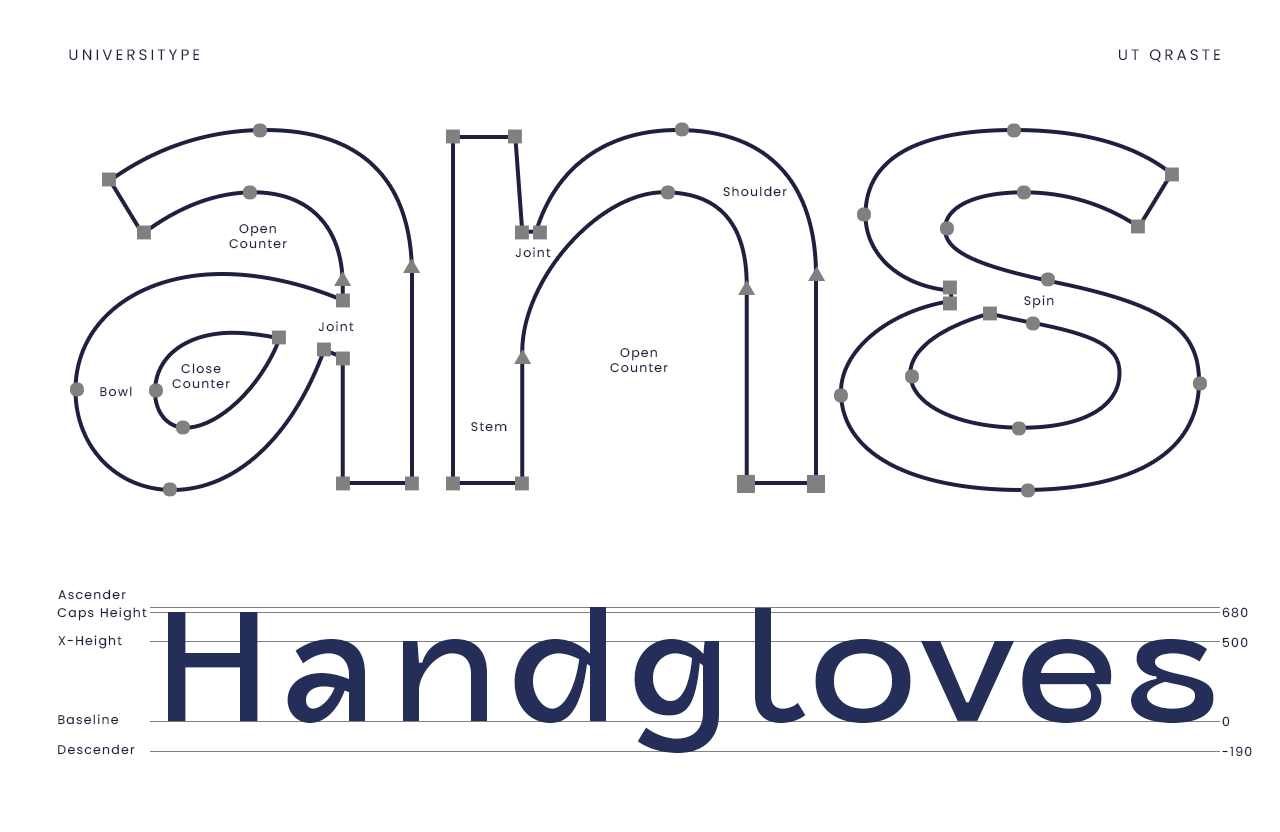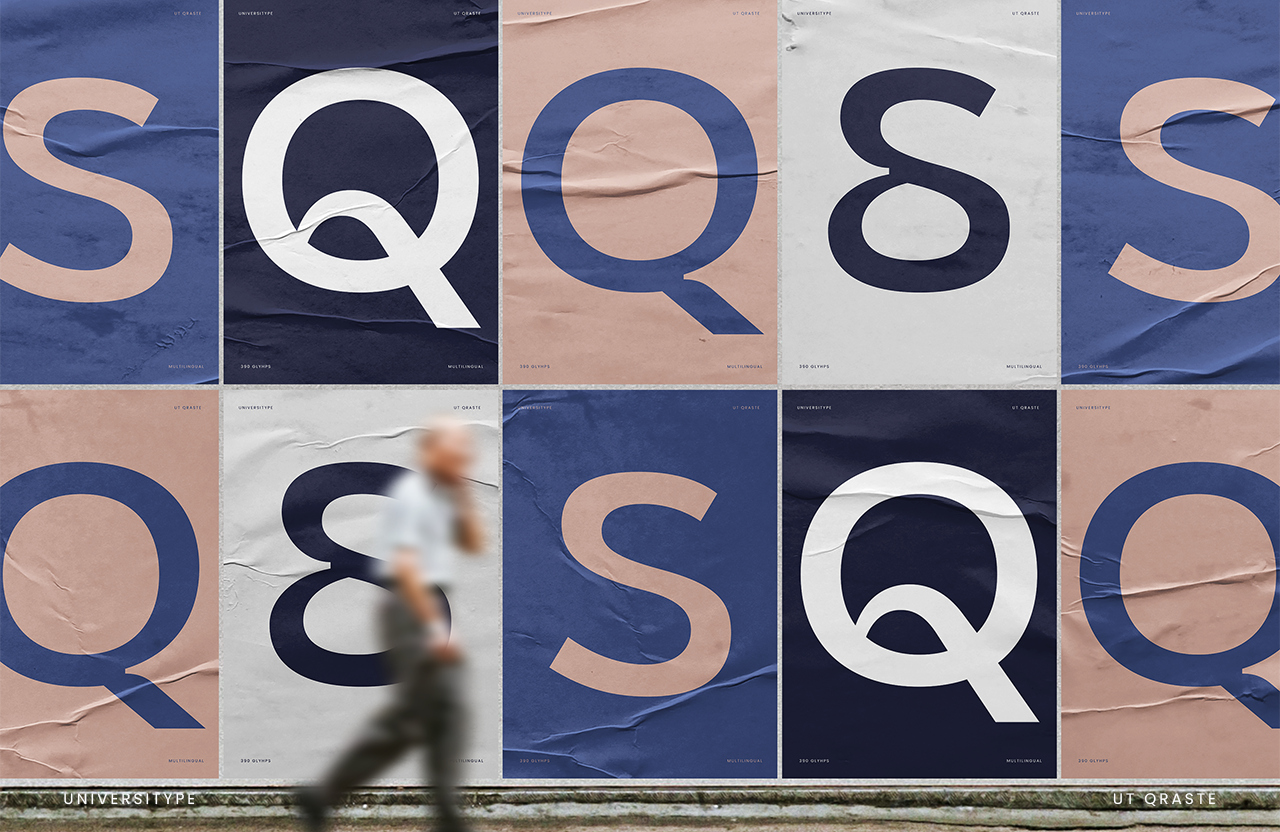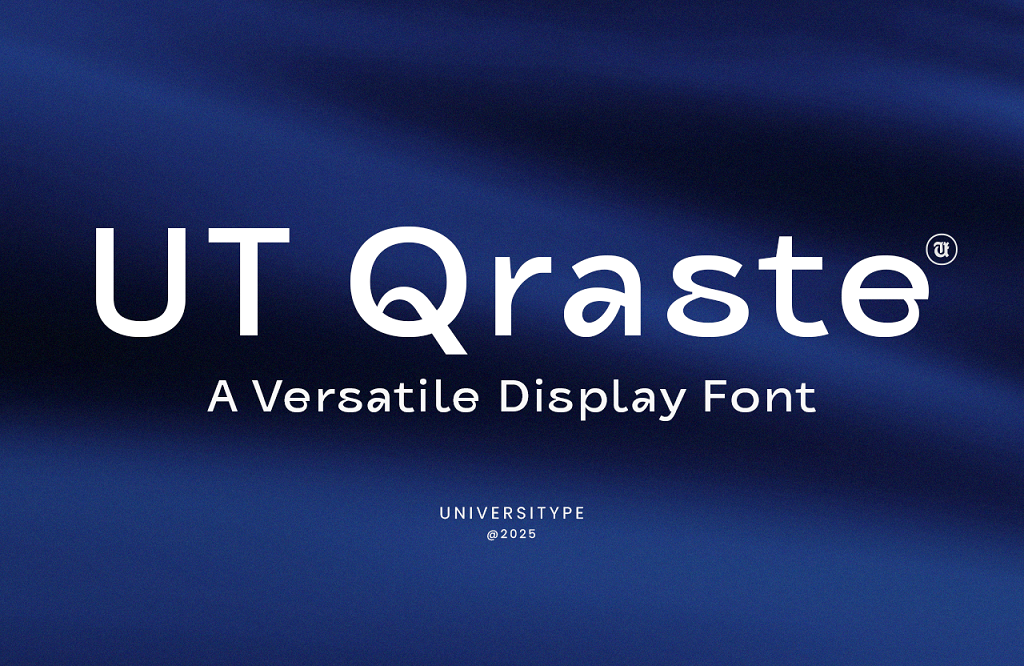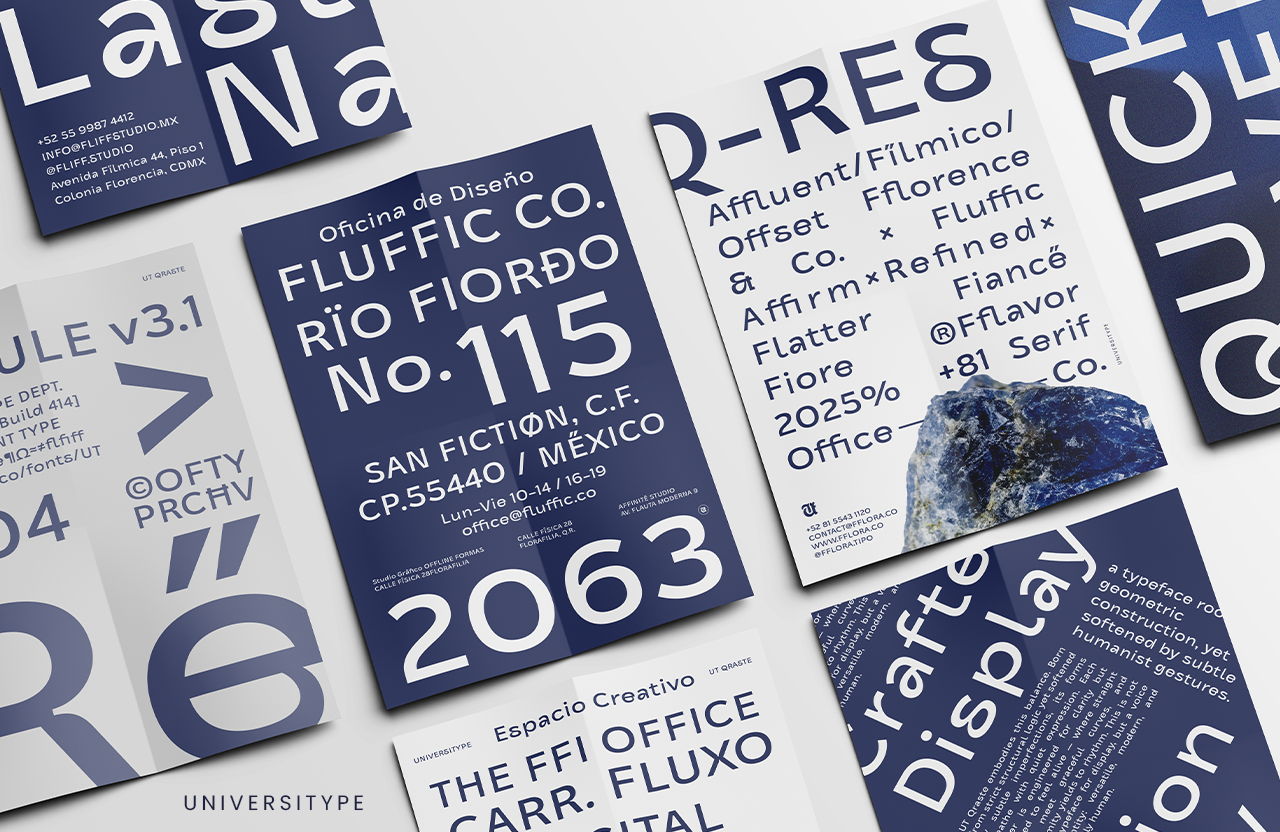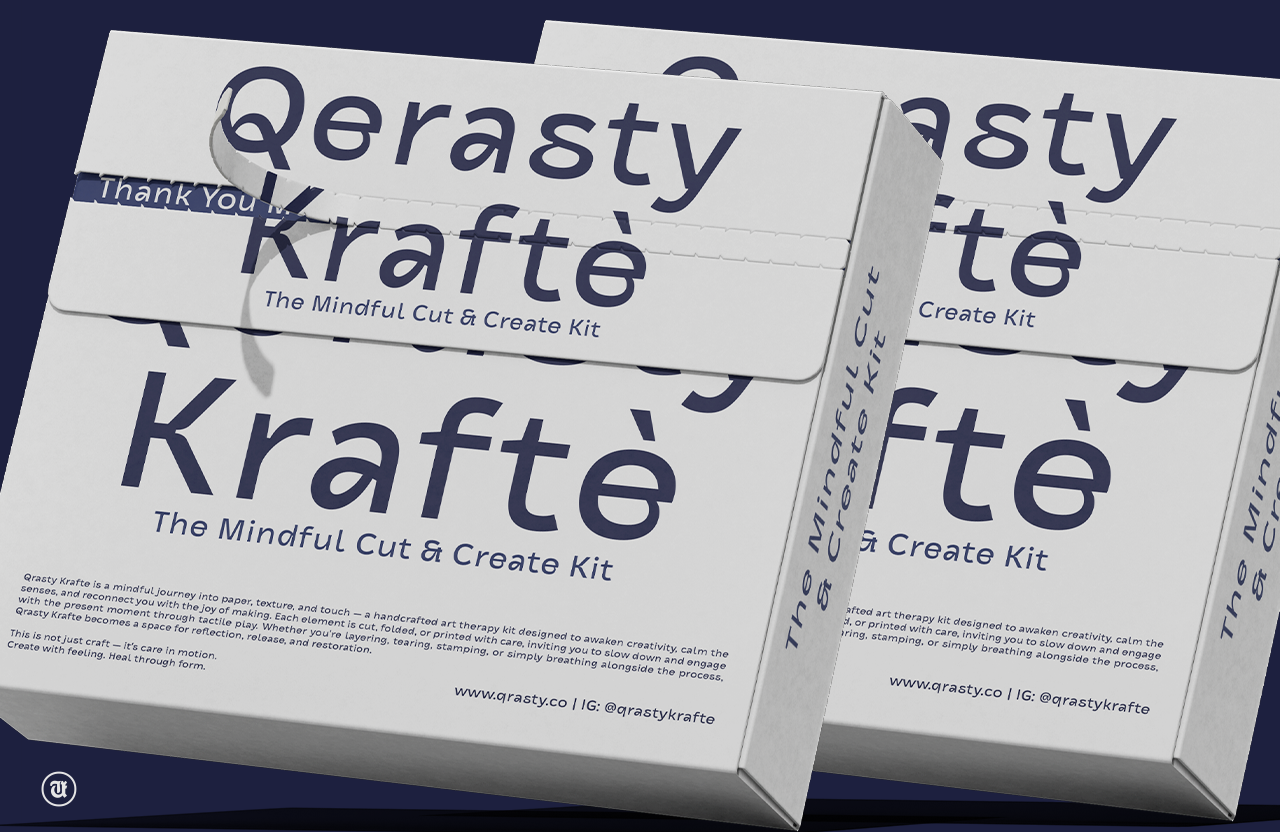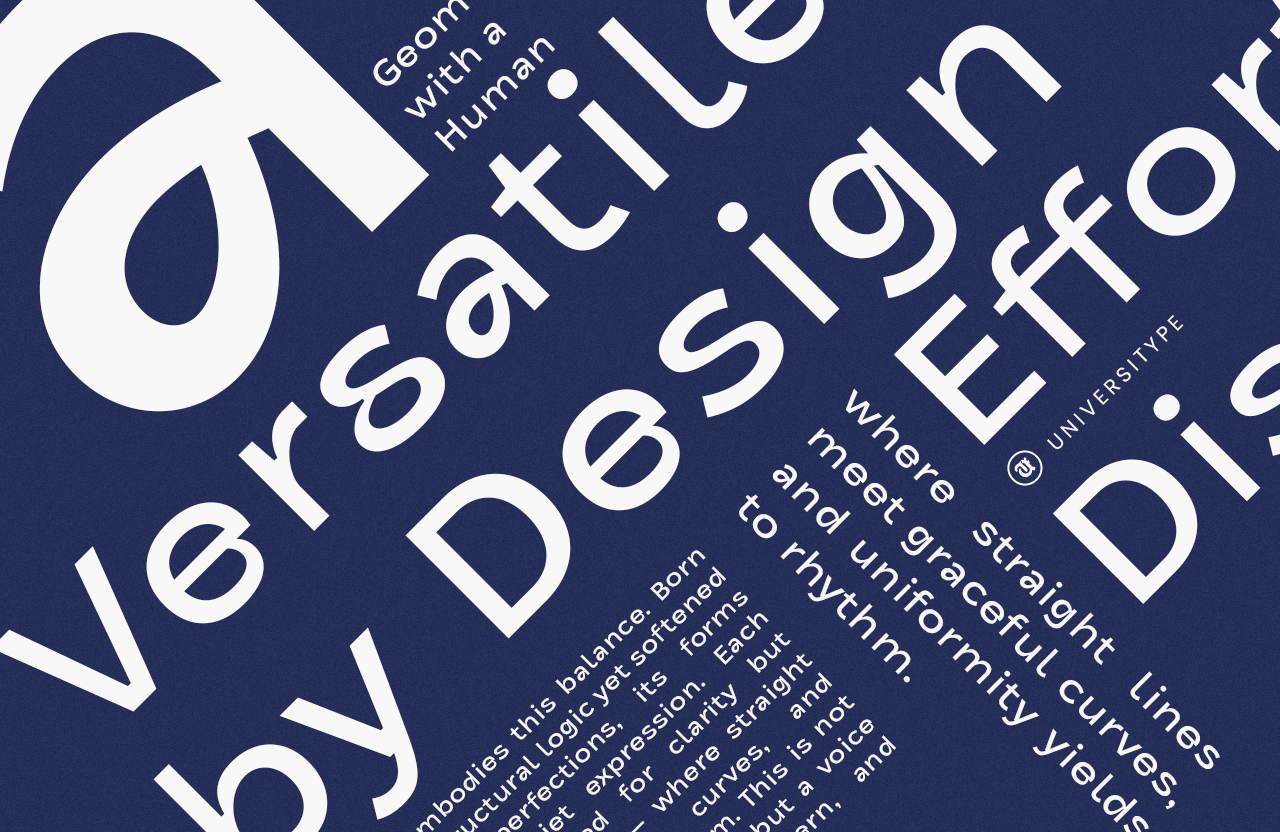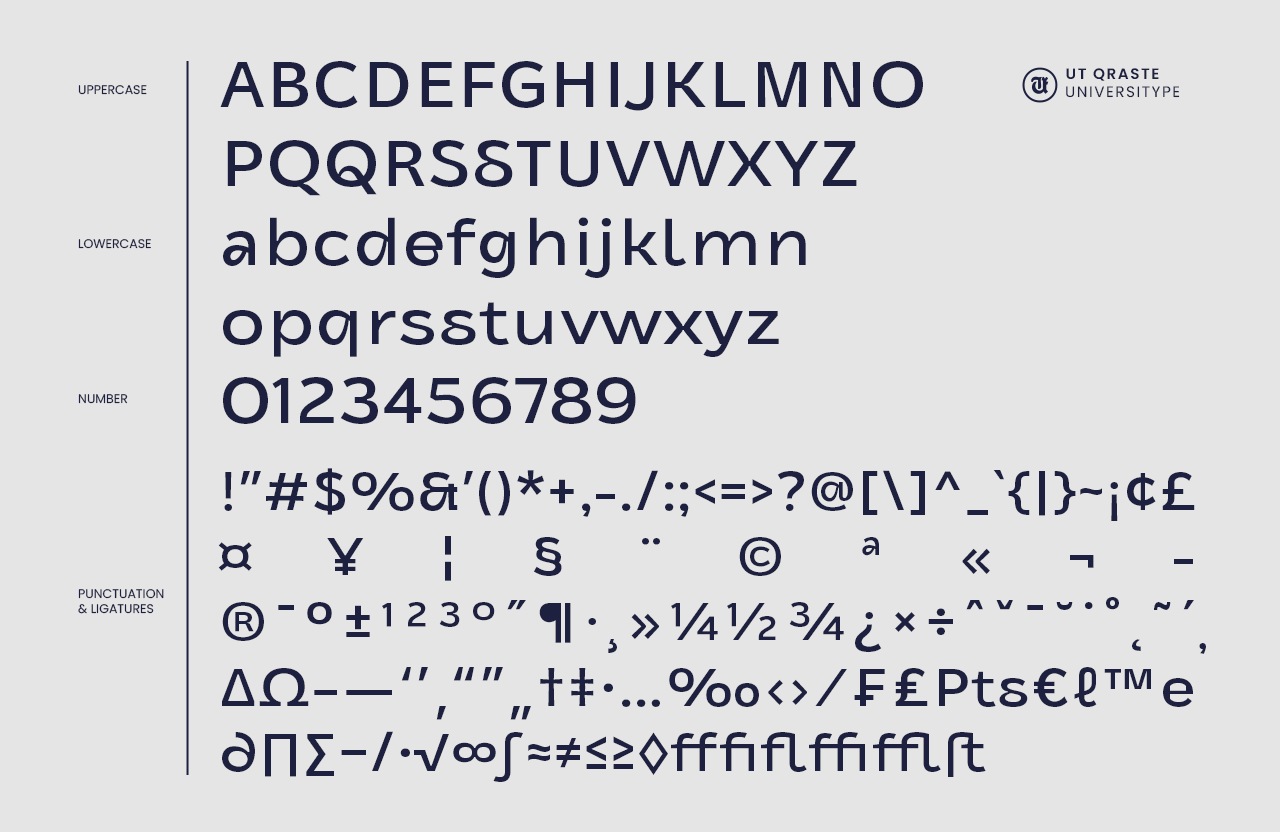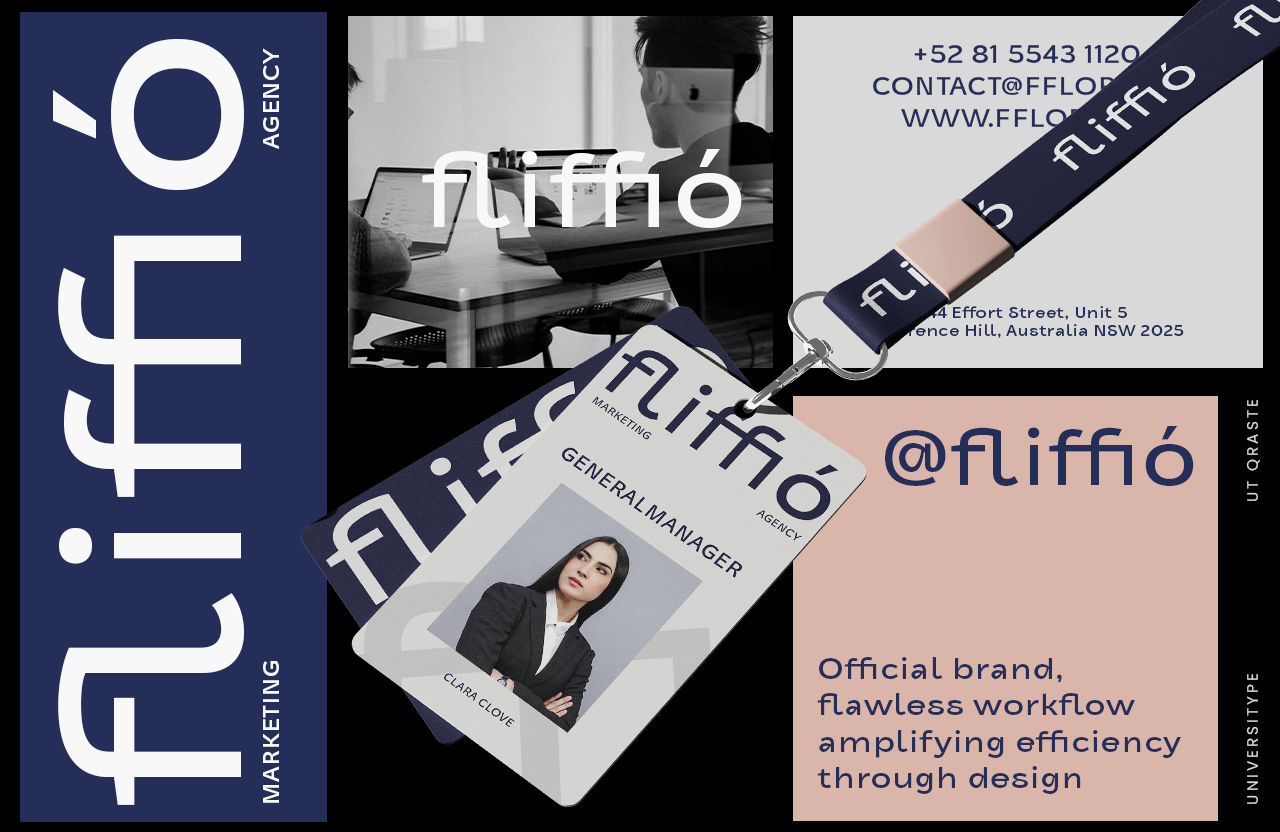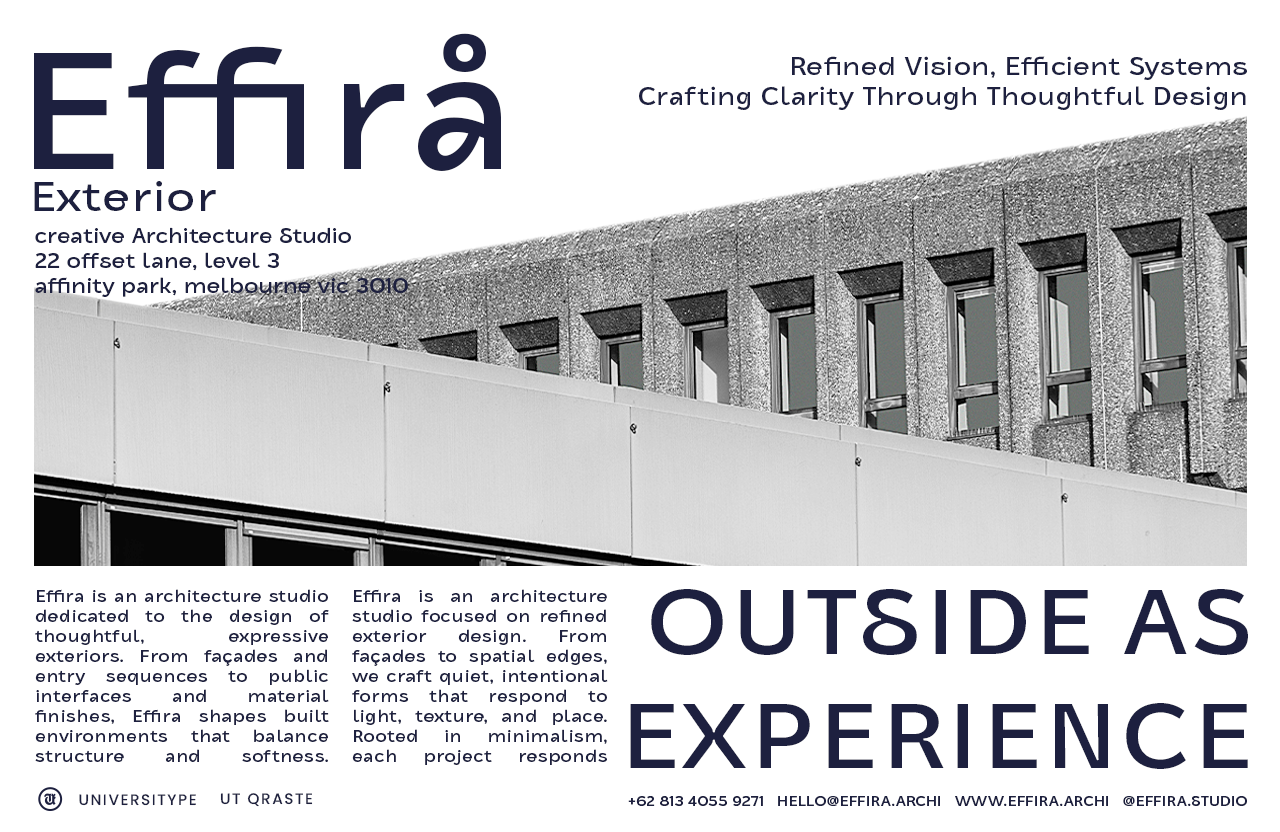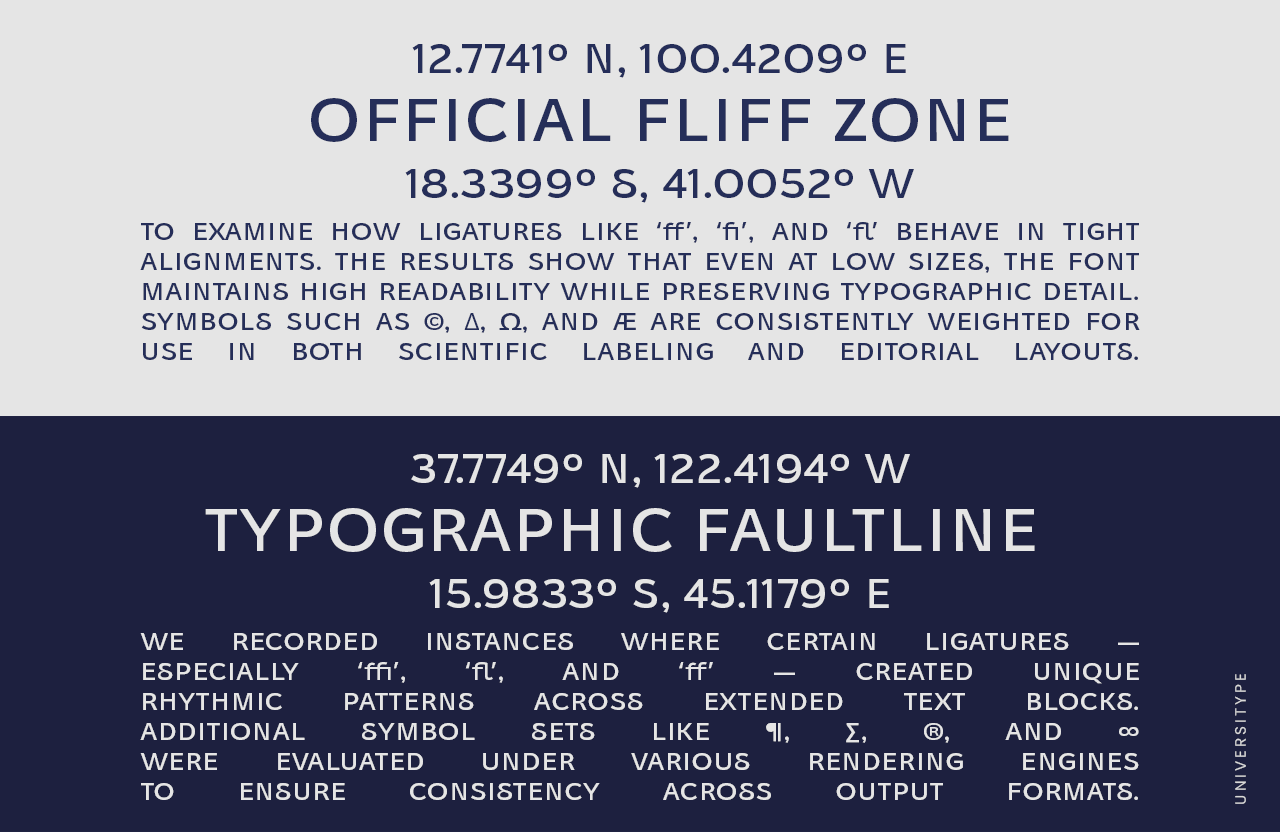
UT Qraste - A Versatile Display Font
Discover UT Qraste, a one-of-a-kind display font designed to capture attention without overpowering your message. This modern typeface seamlessly combines smooth curves with geometric precision, offering a clean and flexible design that can adapt to any project. Whether you’re crafting a tech brand, designing an editorial header, or creating a striking logo, UT Qraste adds just the right amount of personality to keep your design interesting and engaging.
Target Audience
UT Qraste is perfect for:
- Designers seeking a modern sans-serif font with a unique twist.
- Creatives working on identity, packaging, or tech-forward projects.
- Studios that appreciate a font with character and structure.
- Type Enthusiasts who love subtle quirks in letterforms.
Key Features
- Open Counters for enhanced readability.
- Distinct Curves with a touch of asymmetry for added charm.
- Clean, Bold Strokes that maintain clarity across various sizes.
- Full Punctuation Set, symbols, and multilingual support.
Inspiration Behind the Design
UT Qraste was inspired by the dynamic interplay between logic and spontaneity, blending geometric form with human expression. Its unique quirks draw from the rhythm of handwriting, while its structure remains rooted in modular thinking. Imagine Bauhaus design infused with a positive, playful spirit.
Usage Suggestions
- Branding and Logos: Elevate your brand with a distinctive typeface.
- Editorial Layouts and Titles: Make your headlines stand out.
- Poster Designs: Capture attention with bold typography.
- Fashion, Art, and Music Campaigns: Add a touch of modernity and personality.
- User Interfaces and Packaging: Enhance user experience with a versatile font.
Technical Details
- Glyph Count: 390
- Language Support: Extended Latin
- Stylistic Set: 1 Style
- Features: Standard Ligatures, Punctuation & Symbols, Basic Math Symbols, Stylistic Alternates, Multilingual Support